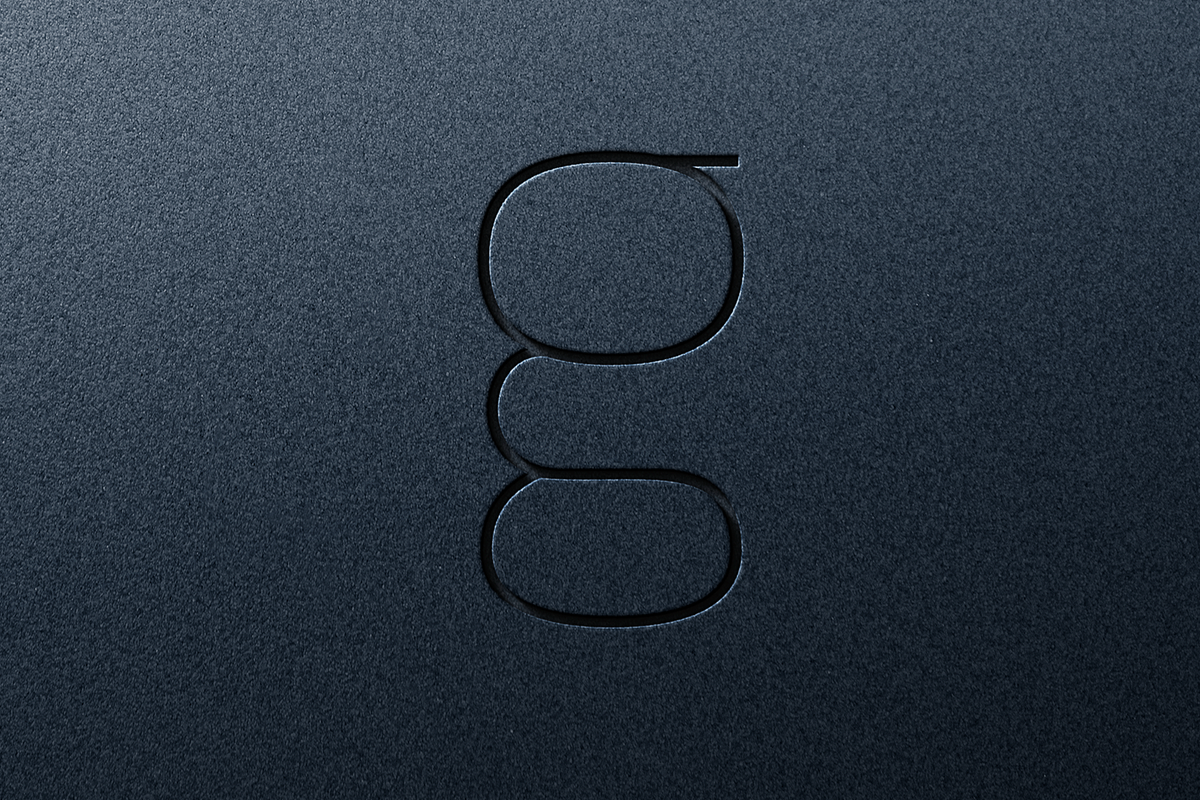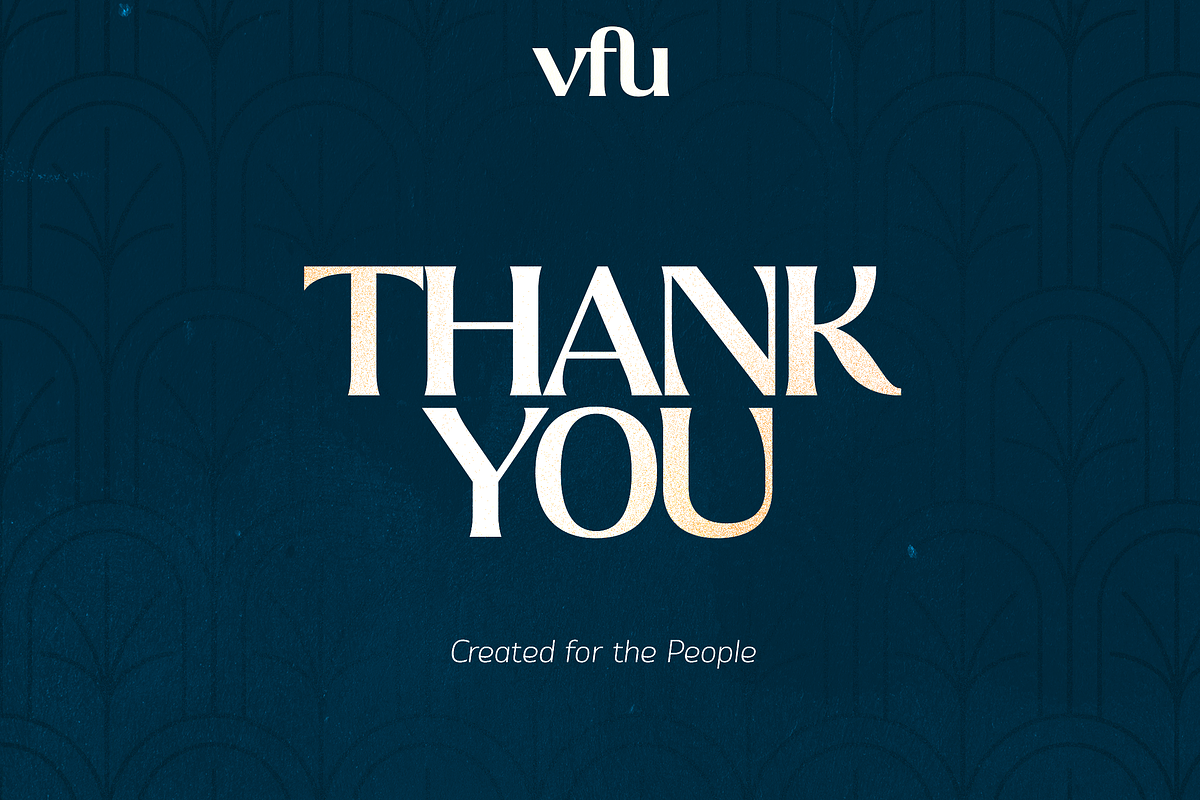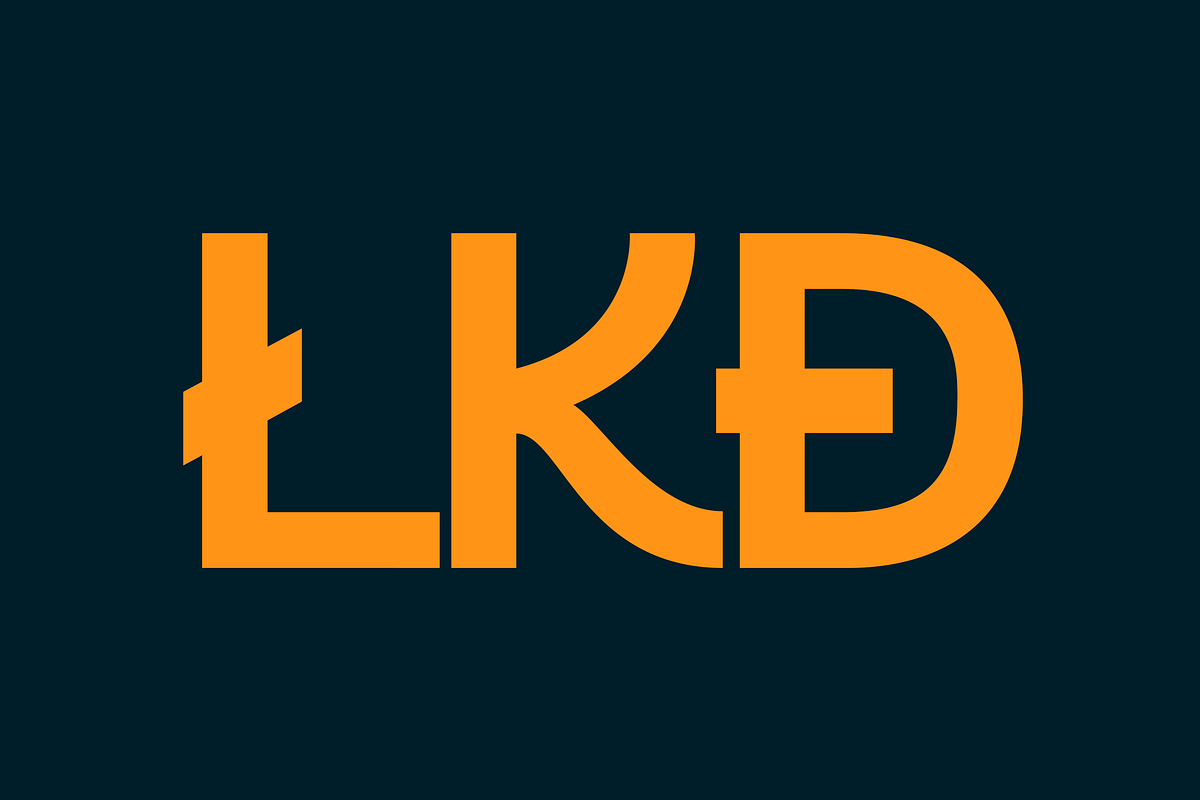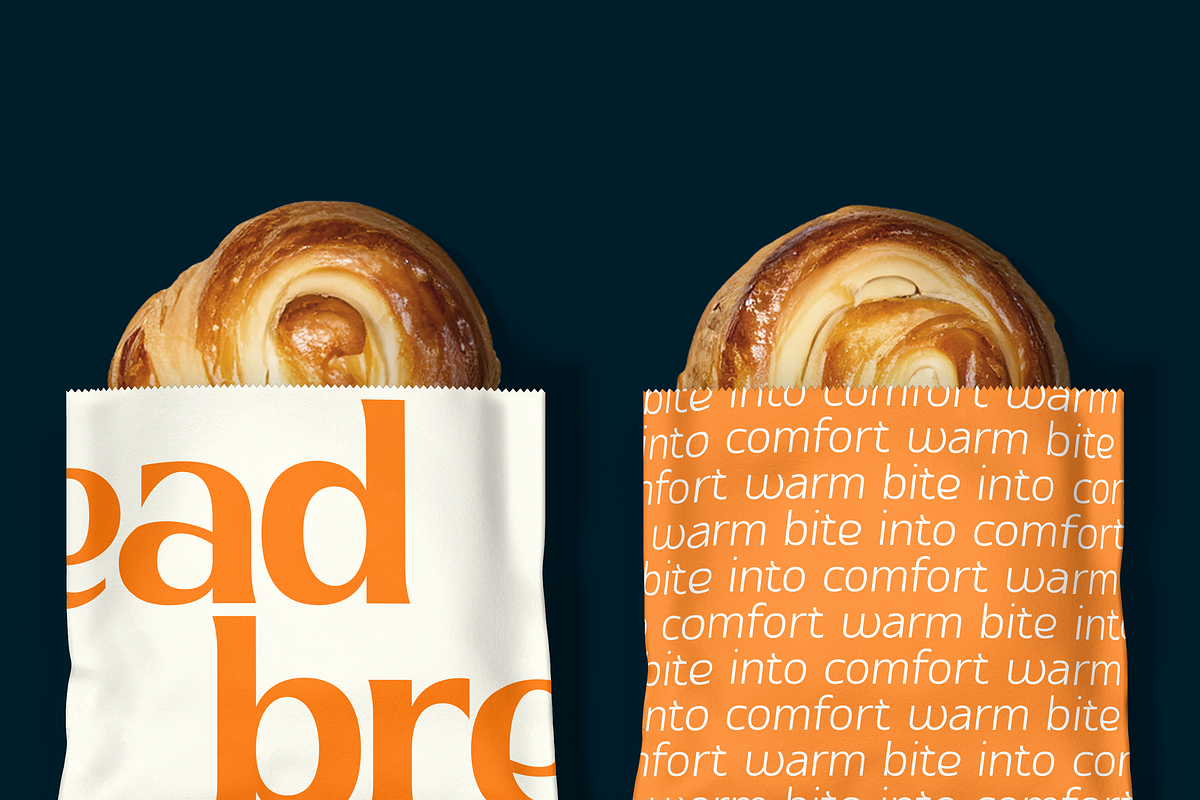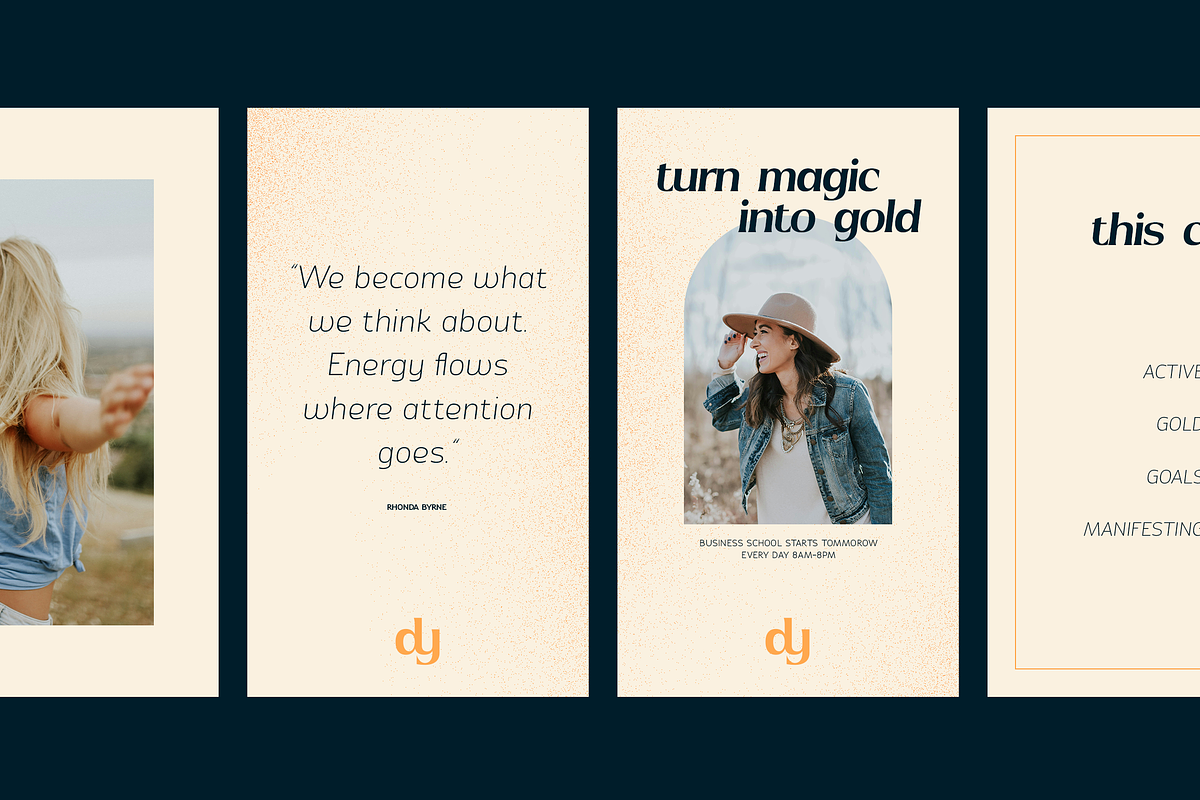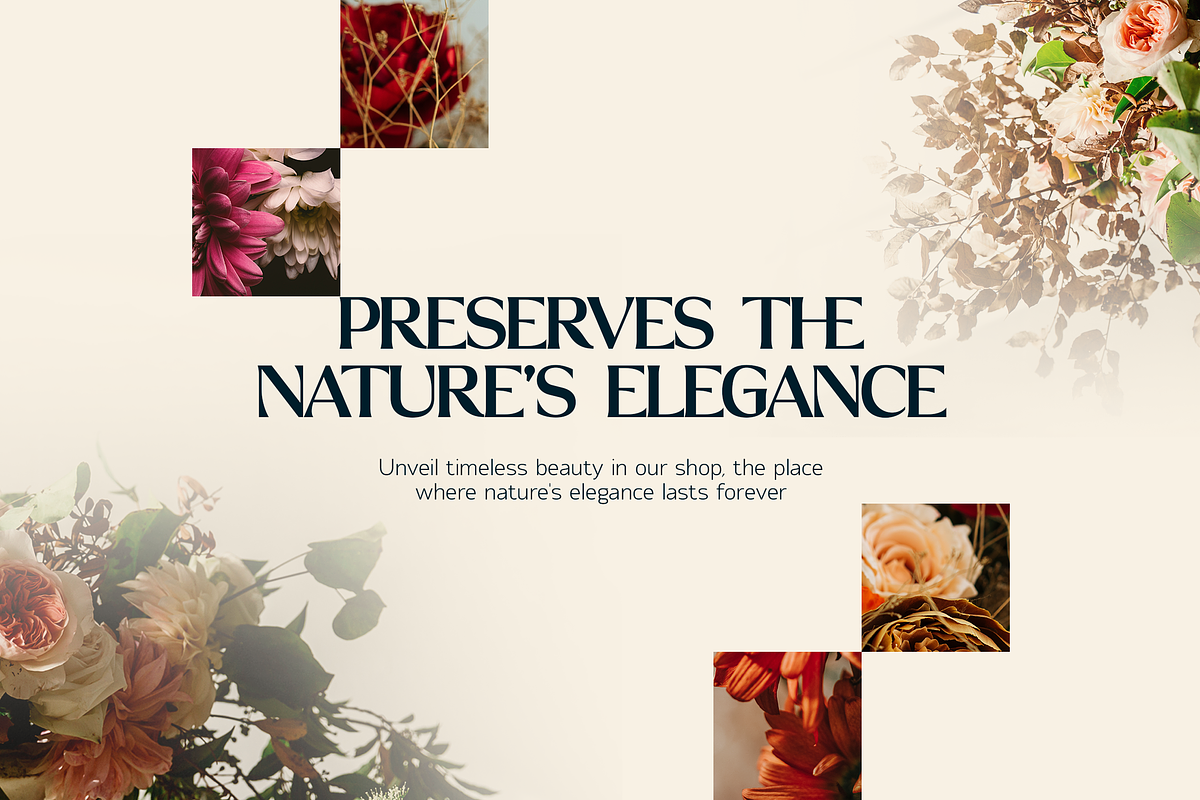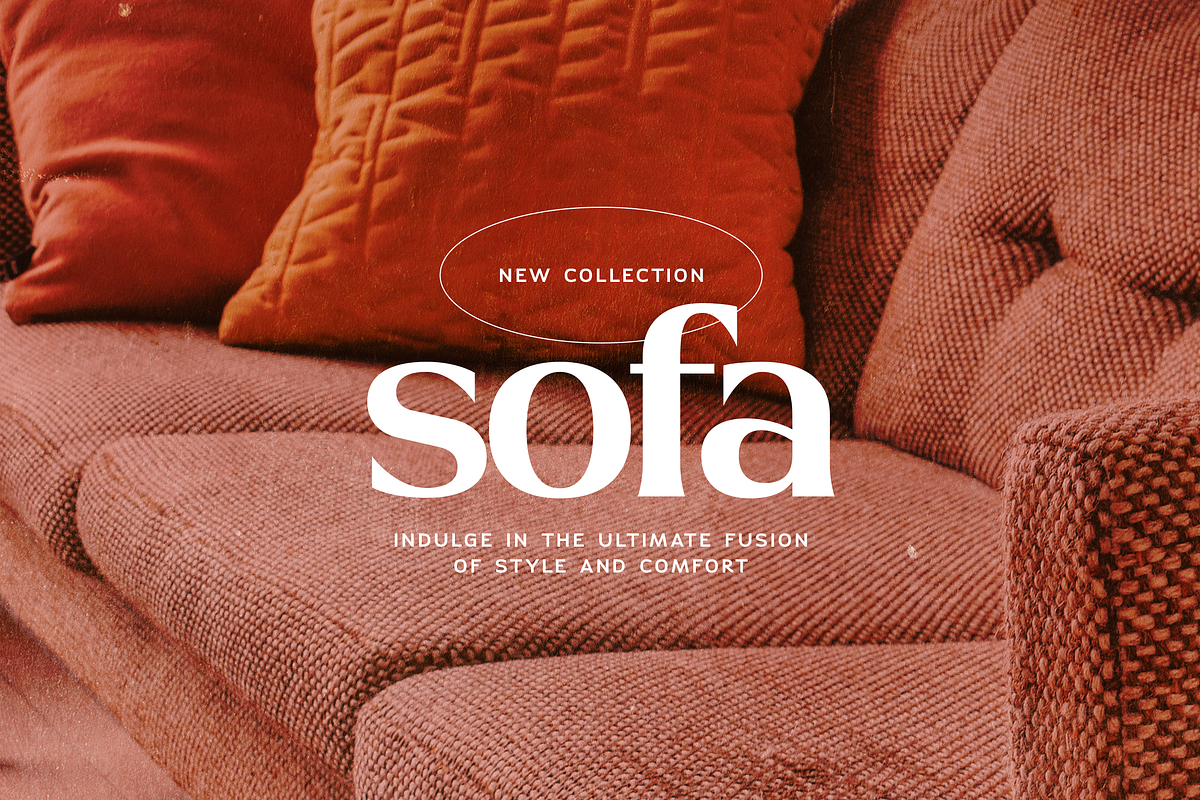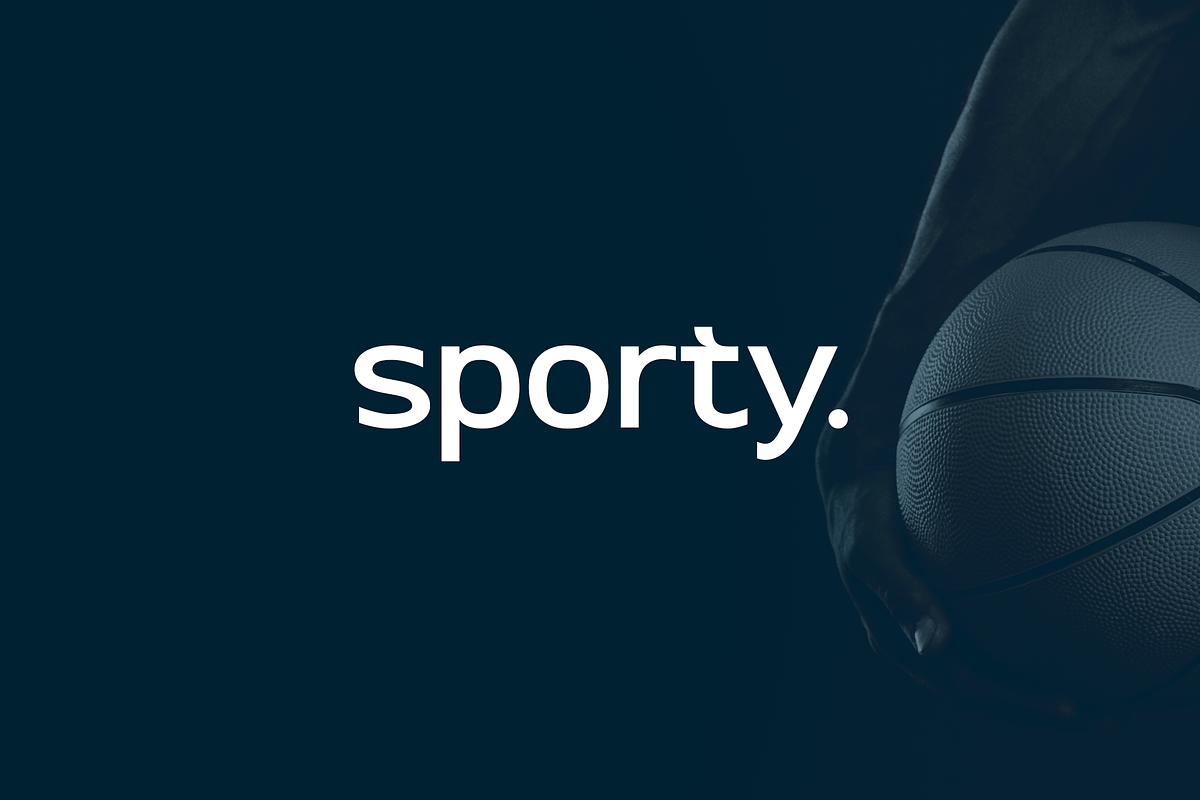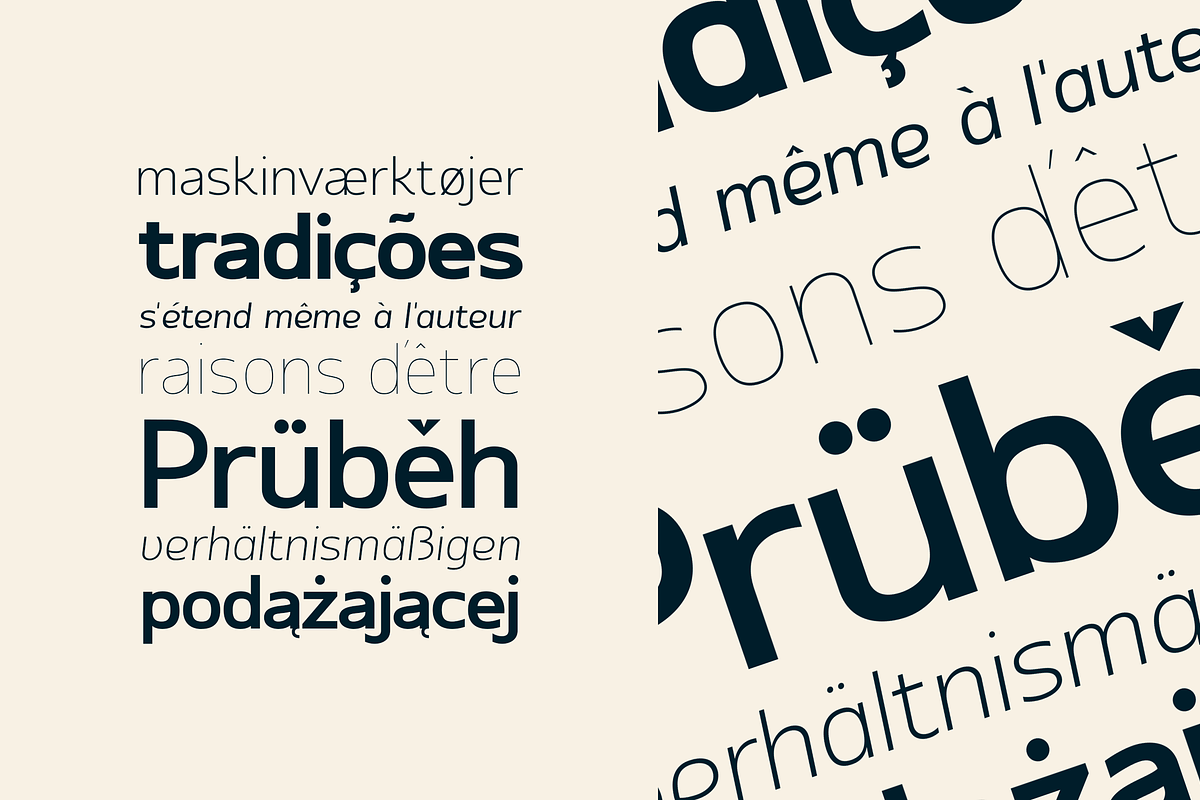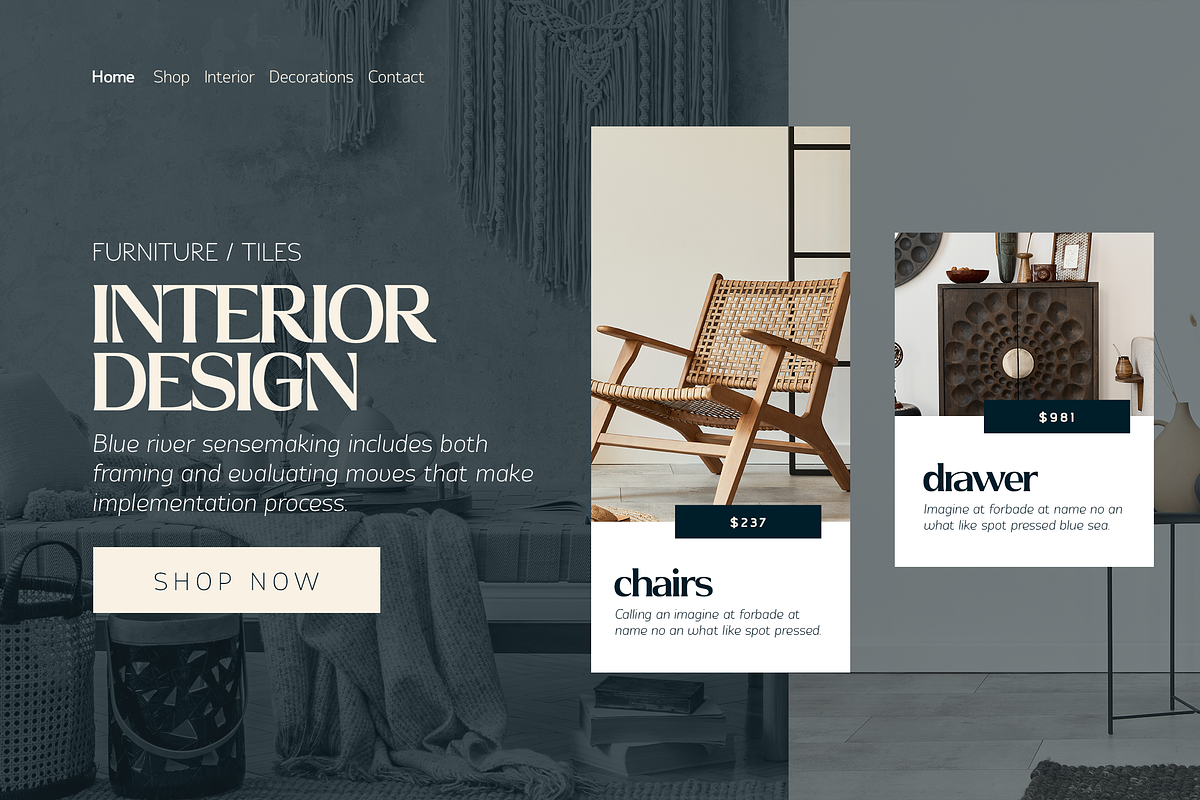
VFU - Visionary Font Ultra typeface
VFU (Visionary Font Ultra) is a versatile typeface with 9 sans serif weights, matching italics, and a unique display version. Designed for modern and creative projects, VFU supports extended Latin, Cyrillic, and Bulgarian Cyrillic scripts, offering alternate and ligature glyphs for added design flexibility. Ideal for headlines, branding, and editorial use, this typeface brings a visionary touch to any layout.
Language Support : Belarusian, Bosnian, Bulgarian, Chechen, Macedonian, Russian, Serbian, Afrikaans, Albanian, Asu, Basque, Bemba, Bena, Breton, Chiga, Colognian, Cornish, Czech, Danish, Dutch, Embu, English, Estronian, Faroese, Filipino, Finnish, French, Friulian, Galician, Ganda, German, Gusii, Hungarian, Indonesian, Irish, Italian, Jola-Fonyi, Kabuverdianu, Kalenjin, Kamba, Kikuyu, Kinyarwadna, Litvian, Lithuanian, Lower Sorbian, Luo, Luxembourish, Luyia, Machame, Makhuwa-Meetoo, Makonde, Malagasy, Maltese, Manx, Meru, Morisyen, North Ndebele, Norwegian Bokm ål, Norwegian Nynorsk, Nyankole, Ormo, Polish, Portuguese, Quechua, Romanian, Romansh, Rombo, Rundi, Rwa, Samburu, Sango, Sangu, Scottish Gaelic, Sena, Shambala, Shona, Slovak, Soga, Somali, Spanish, Swahili, Swedish, Swiss German, Taita, Teso, Turkish, Ukrainian, Upper Sorbian, Uzbek (Latin), Volap ük, Vunjo, Walser, Welsh, Western Frisian, Zulu